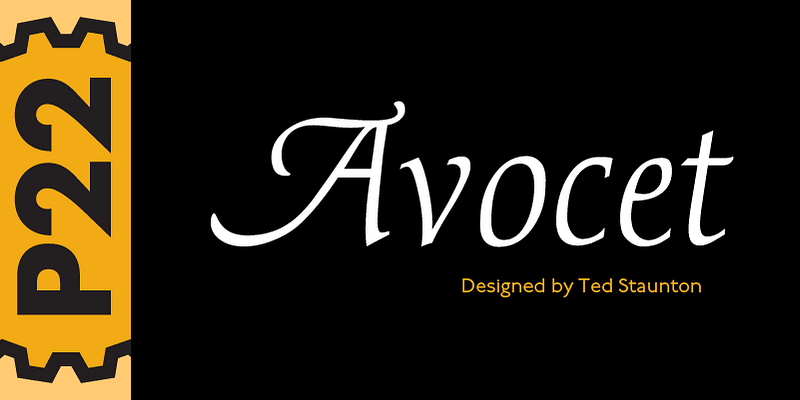
P22 Avocet Pro Font Free Download is an elegant, modern serif typeface with a clean and sophisticated design. Its well-balanced letterforms and smooth curves make it ideal for high-end branding, editorial designs, invitations, and any project that requires a refined, polished aesthetic.
P22 Avocet Pro Font works beautifully for both large display text and smaller body copy, offering excellent legibility and timeless style. It integrates seamlessly with popular design tools like Adobe Illustrator, Photoshop, Figma, and Canva, making it suitable for both print and digital media.